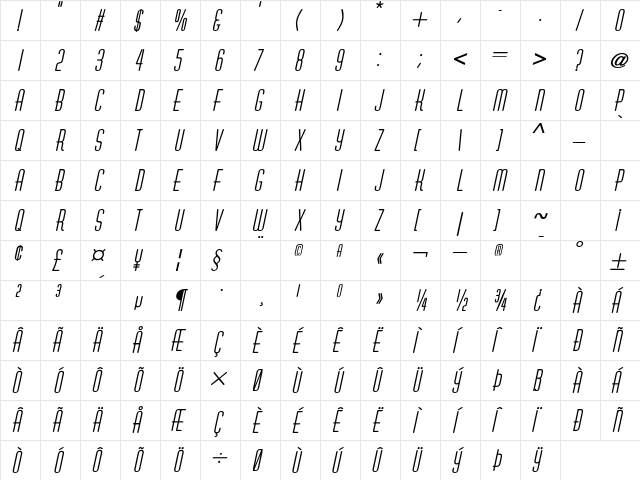
Astaire BlackItalic
Design Context for Astaire Typeface
Astaire offers clean, dependable letterforms without strong stylistic allegiance, making it a practical choice for designers who need flexibility. The dynamic lean of this cut emphasises speed and emphasis in any layout.
Pro Tip: Use Astaire for emphasis, pull quotes, and subheadings where its slanted energy can add rhythm to the layout.